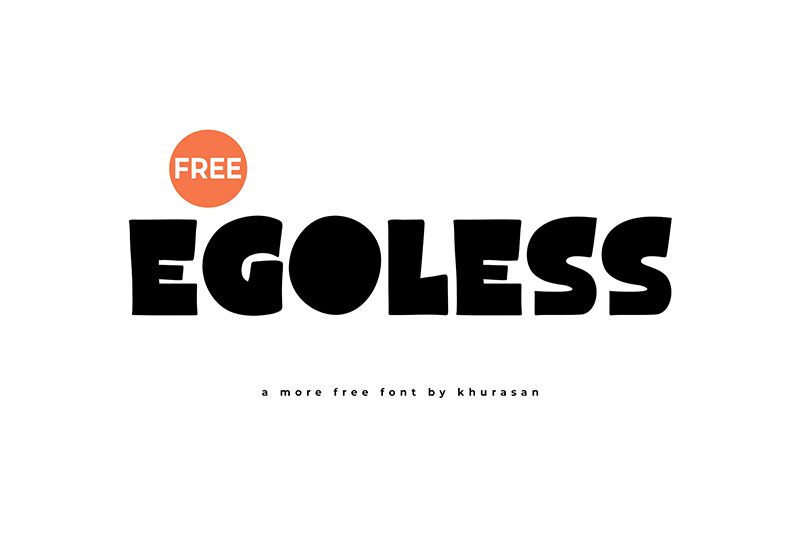
Egoless
Egoless font by Khurasan is a bold cartoon-like display font with a charismatic presence. It combines geometric and vintage-inspired elements to create humorous characters with outlines filled with thick black. The wide letters are as amusing and vibrant as can be, just what’s necessary for an engaging title or attractive display.
Pick up Egoless if you want a fun design in the branding of a children’s store, book cover design, social media posts, poster/flyer/leaflet template, app development, website footer headers, magazine title layout etc. This is yet another free display font to help make your projects unique at no cost!